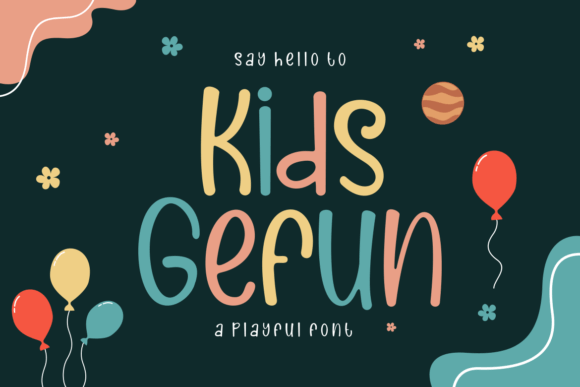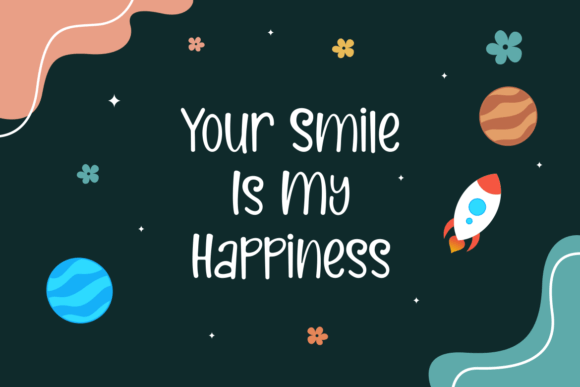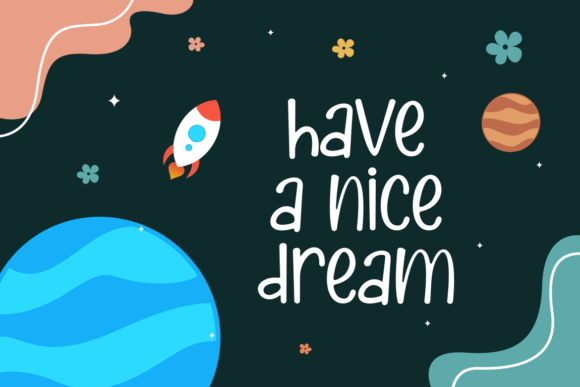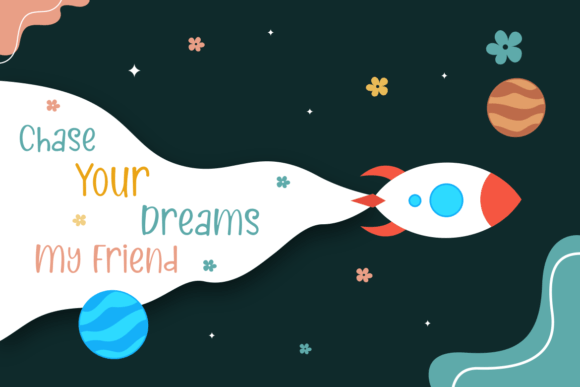
Kids Gefun Font: A Cute & Playful Display Font for Cricut Crafts
About the Kids Gefun Font
The Kids Gefun Font offers a perfect balance of form and function for your design needs. Kids Gefun is a modern, bold, and authentic display font. This font is perfect for any branding project such as logos, t-shirt printing, creative products, and more. extraordinary in a variety of contexts.
Kids Gefun’s bold, playful energy makes it ideal for headlines, posters, and packaging targeting a younger audience or projects needing a fun, approachable feel. It excels in short, impactful text and works well for branding initiatives focused on children’s products, entertainment, or playful lifestyle brands. Avoid using it for body text or long paragraphs; its strong character is best suited for visual impact rather than extended readability.
Pairing Kids Gefun with a clean sans-serif like Open Sans for body copy creates a strong contrast, balancing the display font’s boldness with easy legibility. For a more sophisticated feel, consider pairing it with a classic serif like Garamond, allowing the serif to provide a counterpoint to Kids Gefun’s playful energy.
The font’s overall personality is best described as fun, friendly, and energetic; perfect for projects emphasizing youthfulness, dynamism and a lighthearted tone. Avoid pairings with overly ornate script fonts, which might clash with its modern aesthetic.
Kids Gefun Font Usage Examples
Kids Gefun Font Example